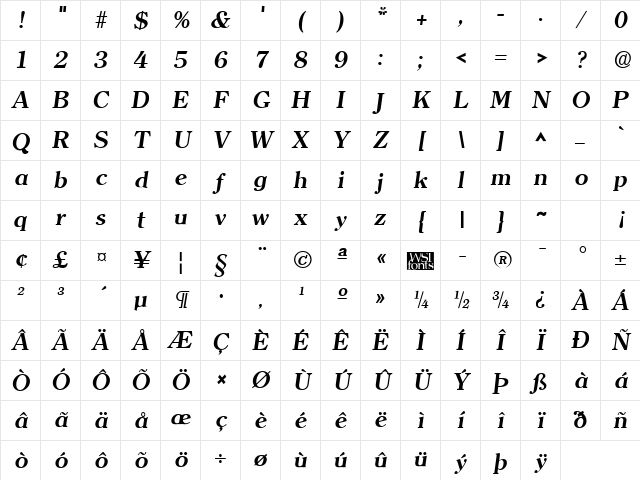
ClearlyRoman Bold Italic
Design Context for ClearlyRoman
ClearlyRoman is a composed and adaptable typeface that performs quietly and consistently across a wide range of design contexts. The slanted form adds forward momentum and visual energy. Its bold stroke weight gives it real presence on the page.
Pro Tip: Use ClearlyRoman for emphasis, pull quotes, and subheadings where its slanted energy can add rhythm to the layout.